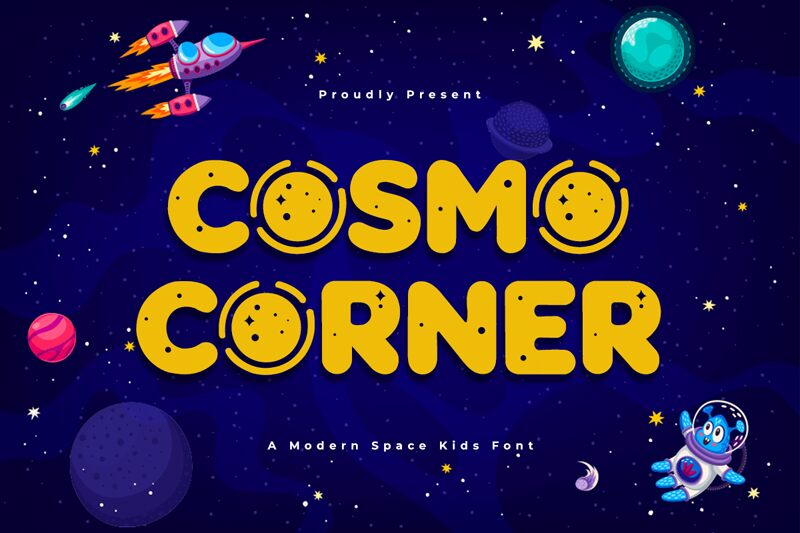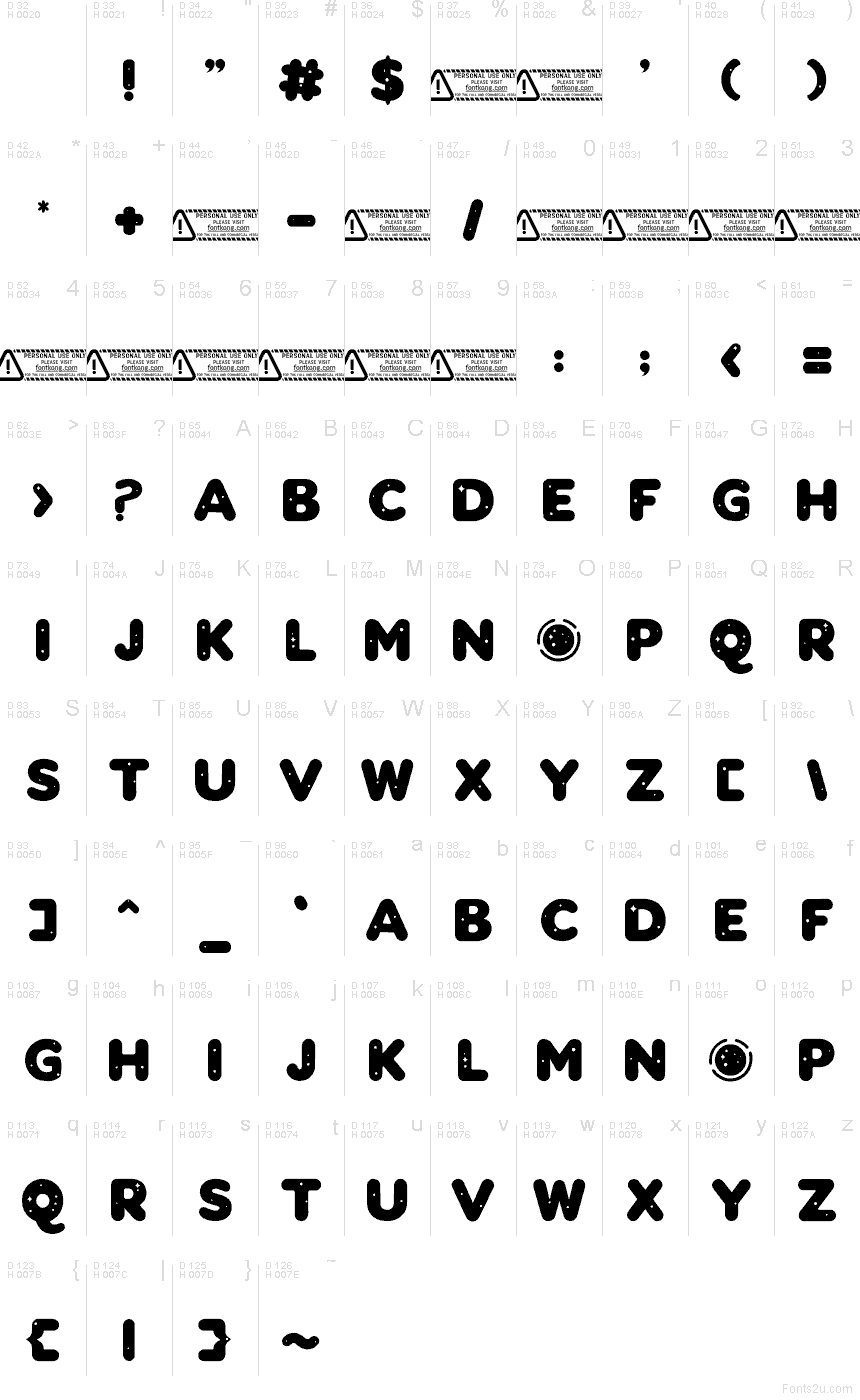
Cosmo Corner font by Kong Font is a free decorative display typeface that turns every word into a tiny galaxy. Chunky, rounded letters are studded with craters and orbiting dots, like playful planets cut from black construction paper. The rhythm feels bouncy and bold, so headlines pop with the energy of a Saturday-morning cartoon or an arcade start screen.
Using Cosmo Corner, you can brand kids’ science events, space-themed party invites, toy packaging, game logos, posters, and YouTube thumbnails with instant cosmic flair. This free font shines at large sizes where its cratered details stay crisp and fun. Pair Cosmo Corner with a simple geometric sans for supporting text to keep your layouts readable while the main title steals the spotlight.